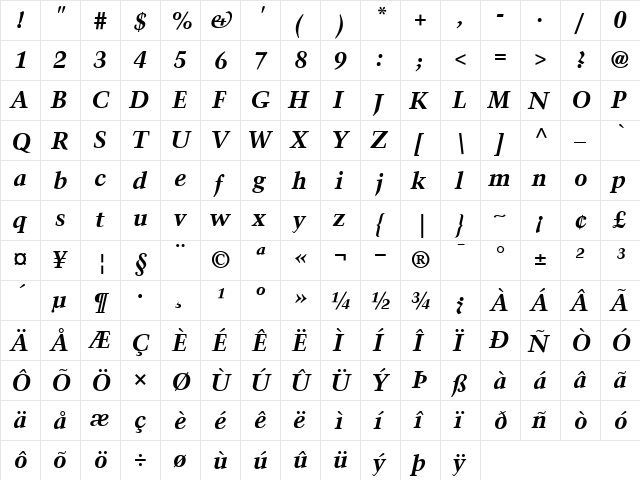
TrumpMediaeval BoldItalic Font Preview
TrumpMediaeval BoldItalic
Design Context for TrumpMediaeval Typeface
TrumpMediaeval is a composed and adaptable typeface that performs quietly and consistently across a wide range of design contexts. The slanted form adds forward momentum and visual energy. The heavy weight commands attention and anchors typographic hierarchies.
Pro Tip: Try TrumpMediaeval for annotation and caption copy alongside an upright companion — the contrast in angle creates a dynamic but ordered typographic system.